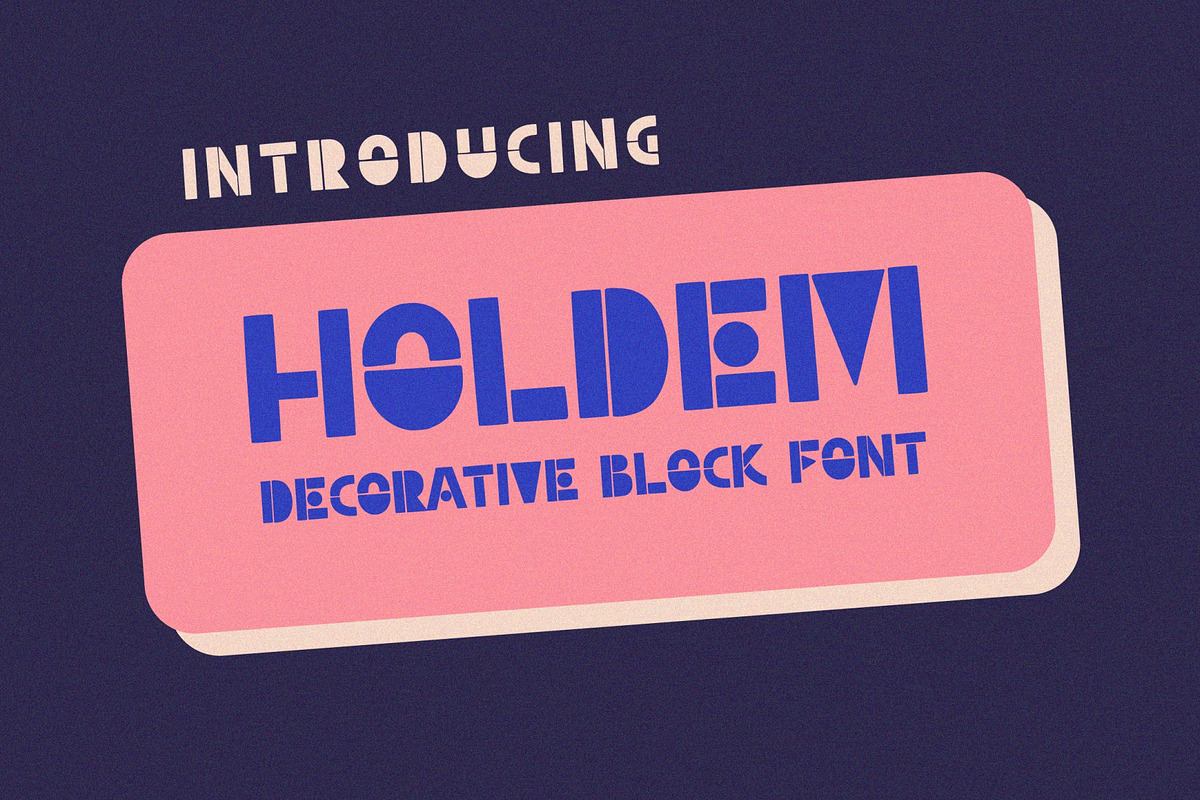
Holdem - Display Block Font Free Download is a bold and striking typeface designed to make a strong visual impact. With its thick strokes, geometric shapes, and clean lines, Holdem is perfect for headlines, logos, posters, branding, and any design that needs to stand out with bold, block-style typography.
Its sturdy and modern design ensures it works well in both large and small formats, making it versatile for both print and digital use. Whether you're creating an edgy logo or a high-impact advertisement, Holdem brings strength and clarity to your design.